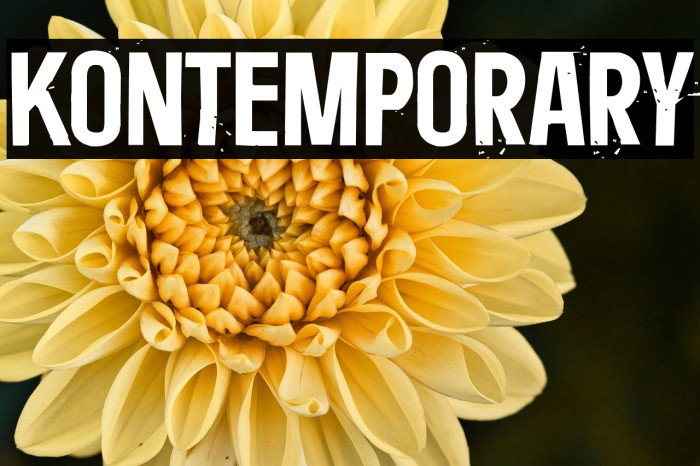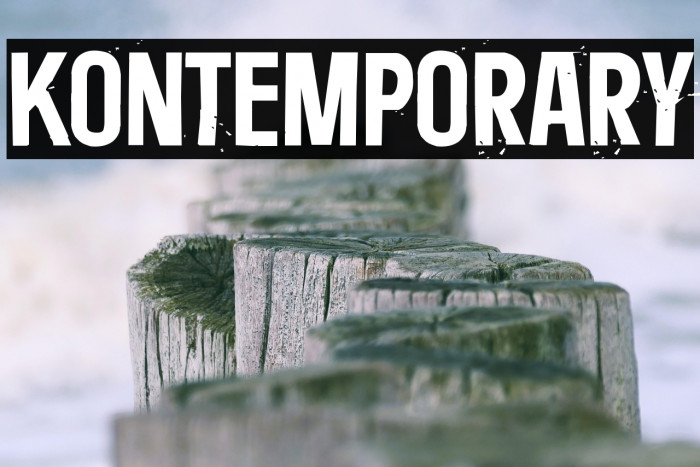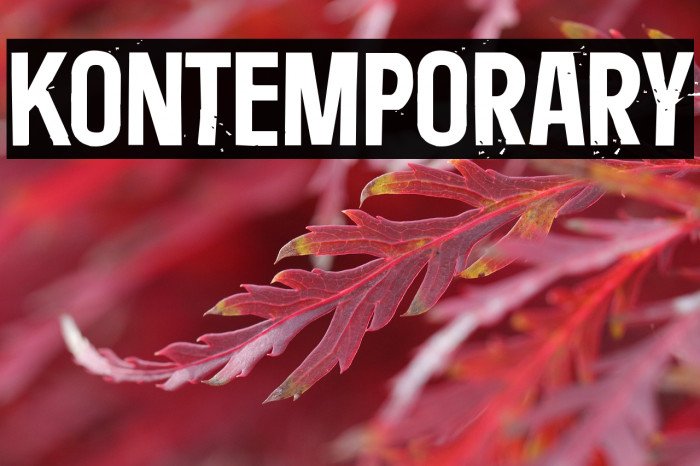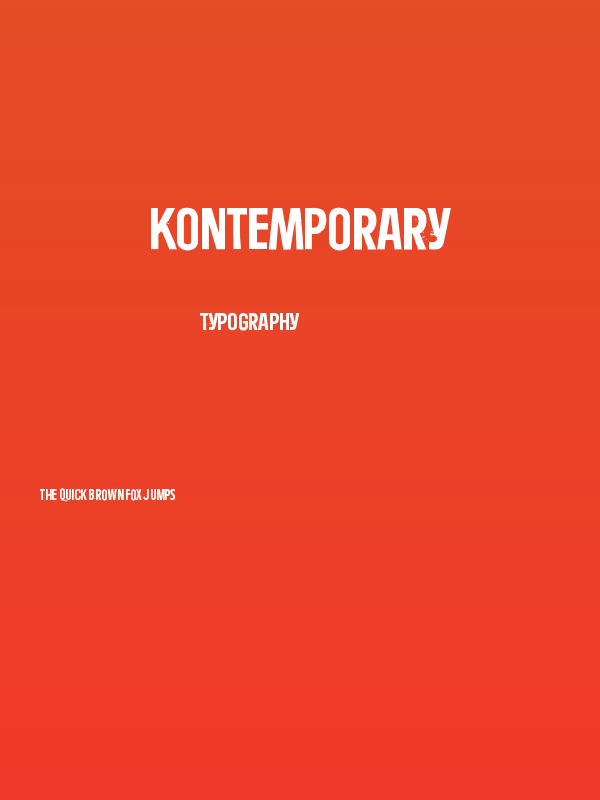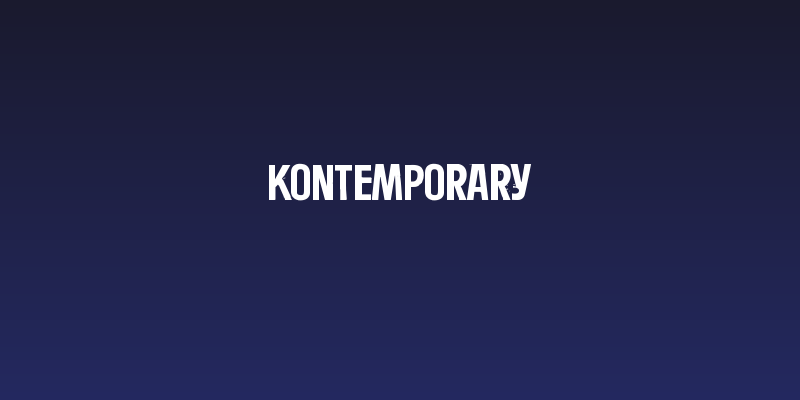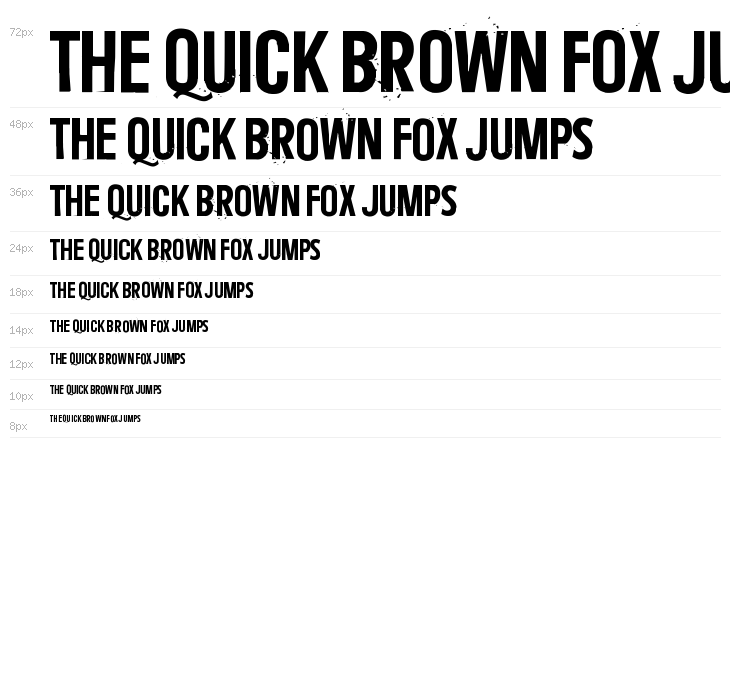
Kontemporary Font
Kontemporary Description
This font features a bold and impactful design with a distressed, grunge texture that adds a rugged, edgy feel. The uppercase letters are strong and commanding, making it ideal for attention-grabbing headlines or titles. The numerals and special characters maintain the same boldness and texture, ensuring consistency across all text elements. The font's design is reminiscent of vintage posters or industrial signage, with a modern twist that makes it versatile for contemporary use.
| Overall Style | Vintage, Industrial |
| Proposed Projects | Ideal for posters, album covers, branding projects, and any design requiring a bold, edgy aesthetic. |